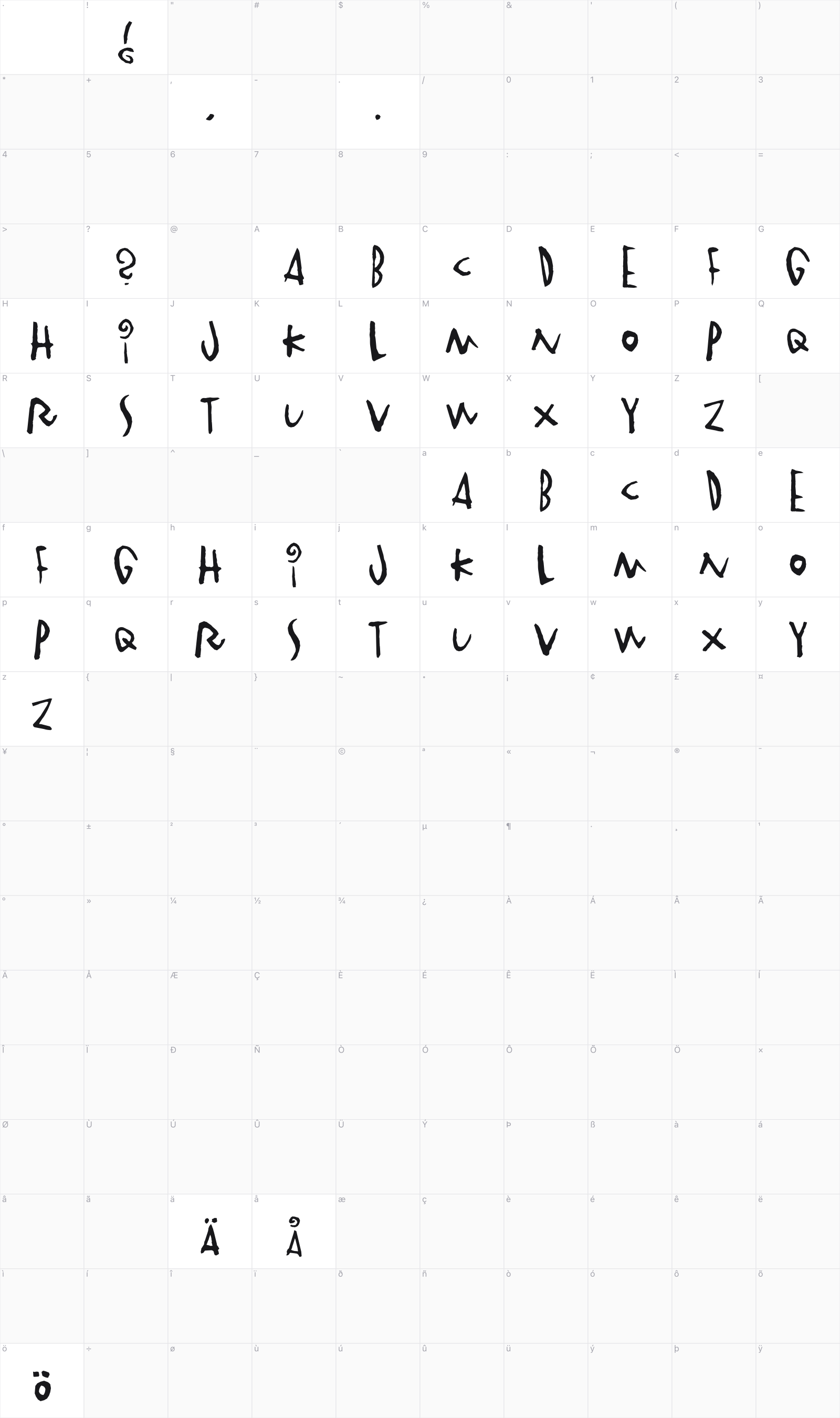
Vinterstad
Vinterstad is a bold, hand-drawn display face by Johan Waldenström with irregular letterforms that feel loose and deliberately imperfect, like someone lettered them quickly with a thick brush and didn't look back. The organic shapes and uneven weight distribution give it a quirky, playful energy that works well for headlines, posters, and packaging where a bit of off-kilter personality is the whole point.